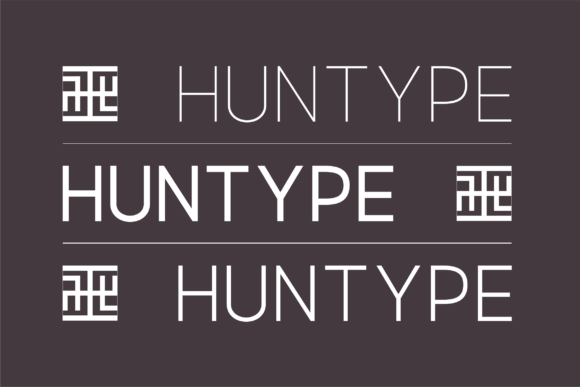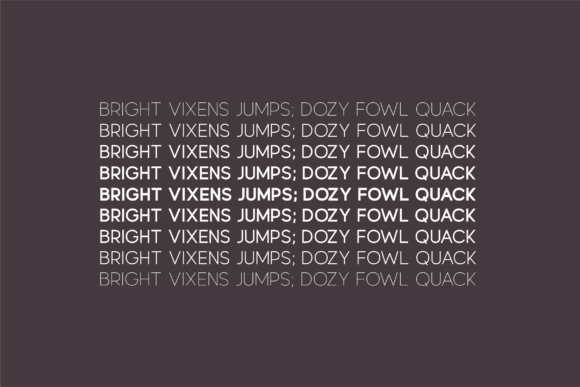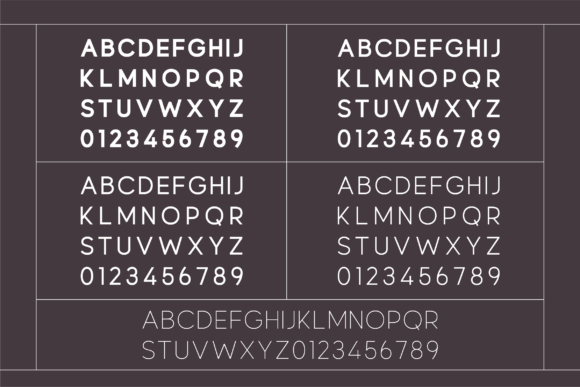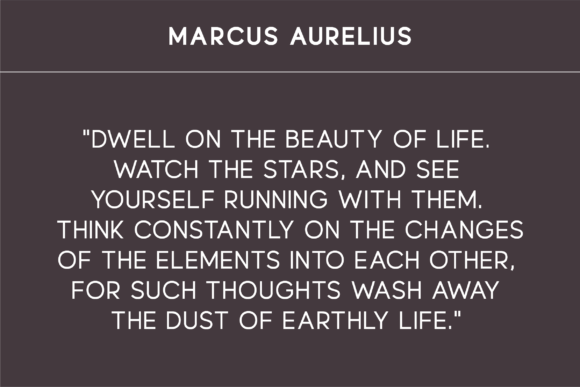
Introduction to Resplendent Family Font
As designers, we’ve all been there – staring at a blank canvas, trying to bring a creative project to life. The perfect font can make all the difference, elevating your design from ordinary to extraordinary. That’s where the Resplendent Family Font comes in – a meticulously crafted font family that embodies elegance, modernity, and versatility.
With its five distinct weights – thin, light, regular, bold, and black – Resplendent offers a wide range of creative possibilities, making it an invaluable design resource for anyone looking to add a touch of sophistication to their work. Whether you’re working on a project with a transparent background or need a font that can make a bold statement, Resplendent is the perfect choice. And the best part? It’s available for free download, making it an accessible and high-quality design resource for designers of all levels.
Key Features of Resplendent Family Font
- High-quality, professional font design ideal for creative projects, with a unique blend of elegance and sophistication.
- Includes a comprehensive character set, covering a wide range of languages and alphabets.
- Perfect for use in various design contexts, including logos, branding, typography, and editorial content.
Honest Review: Resplendent Family Font
I recently had the chance to try out the Resplendent Family Font for a creative project, and I must say I was impressed. This high quality font is a valuable addition to any designer’s arsenal, offering a wide range of styles and weights to suit any design need.
One of the things that stands out about the Resplendent Family Font is its versatility. It’s perfect for both digital and print projects, and its transparent background makes it easy to use with any design element. I particularly appreciated the free download option, which made it easy to incorporate into my project without breaking the bank.
Here are some of the things that work well with the Resplendent Family Font:
- Wide range of styles and weights
- High quality and crisp typography
- Transparent background for easy design integration
As with any font, there are some limitations to consider:
- May not be suitable for all design projects (e.g. very simple or minimalist designs)
- Can be a bit overwhelming to navigate the different styles and weights
Overall, I’m very impressed with the Resplendent Family Font and would highly recommend it to any designer looking for a high quality, versatile font for their next creative project.
The Resplendent Family Font is a high-quality design resource ideal for creative projects requiring a touch of elegance. This versatile font offers a range of styles, making it perfect for various applications.
The Resplendent Family Font is ideal for wedding invitations, business cards, and other high-end design projects. Its elegant and sophisticated style makes it perfect for creating a professional and polished look.